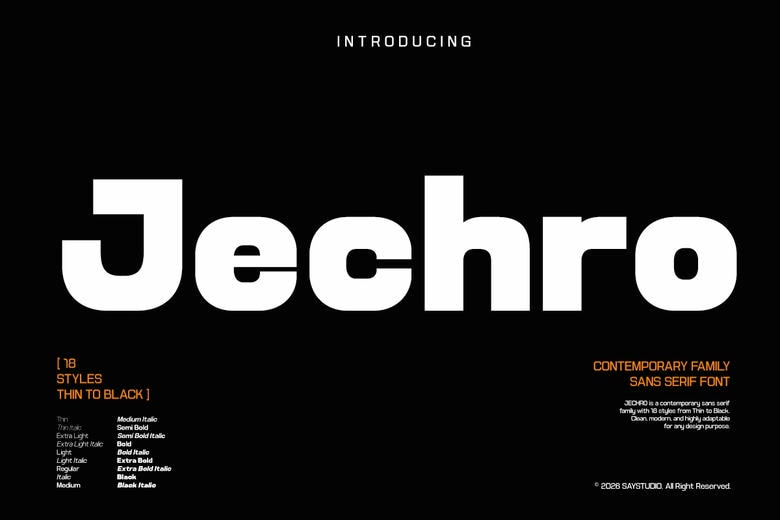
Jechro Font
Jechro is a modern geometric sans-serif font family made for clarity, confidence, and versatility. With its clean lines, balanced shapes, and simple style, it works well for branding and editorial projects.
You can use Jechro for logos, magazine covers, fashion campaigns, websites, packaging, branding, social media graphics, posters, and creative portfolios. It is easy to read and has a modern style.
Jechro Sans Serif Font Family